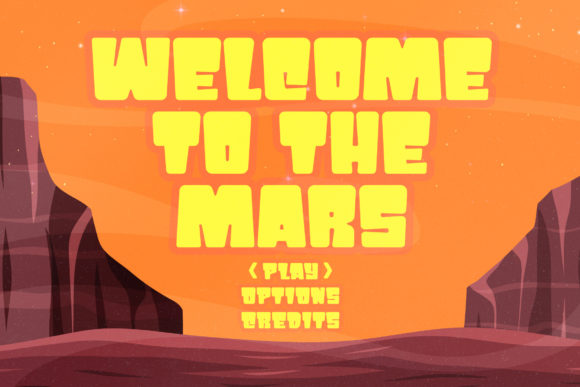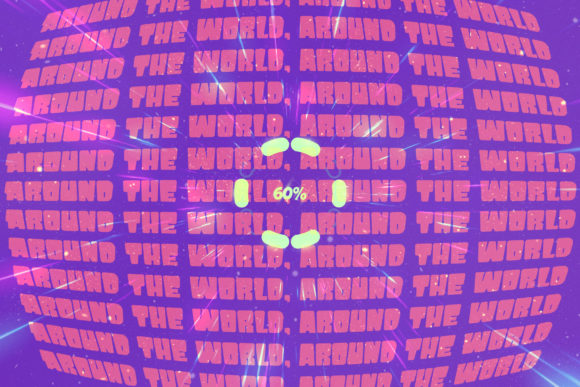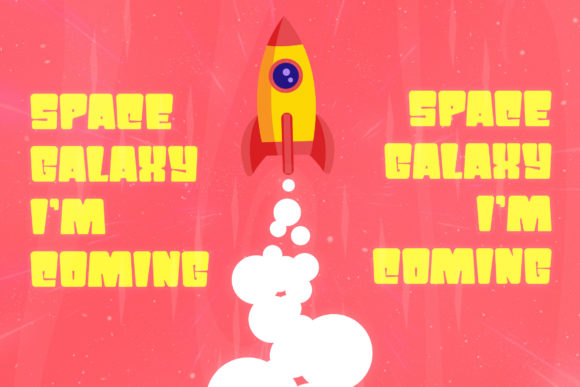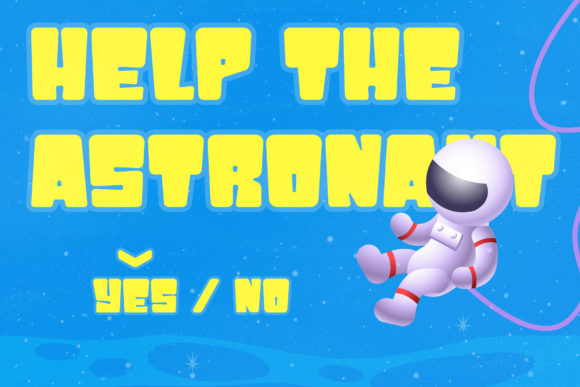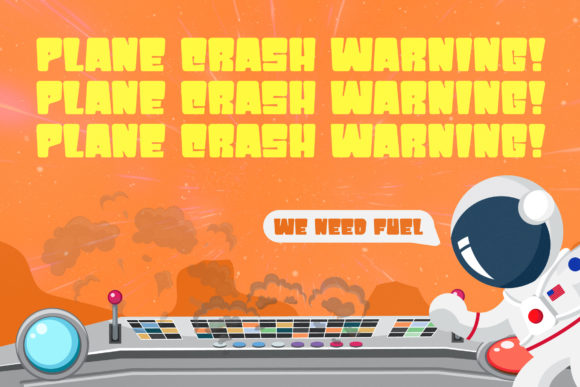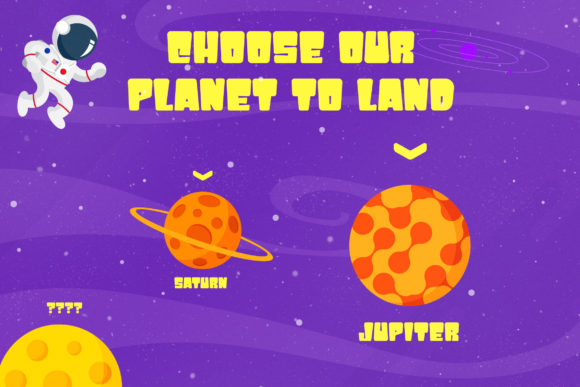
Introduction to Priko Star Font
Priko Star is a cool, bold and very chunky display font.
Whether you are using it for cartoon-related designs, children games, quotes, titles, brand names, book covers, posters, or just any creation that requires a touch of joy, this font is a great choice .
Key Features of Priko Star Font